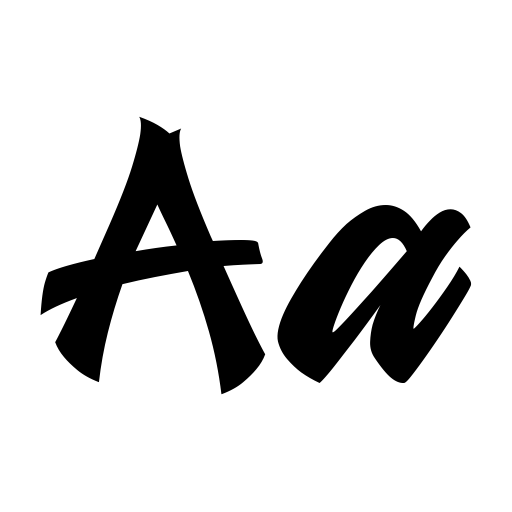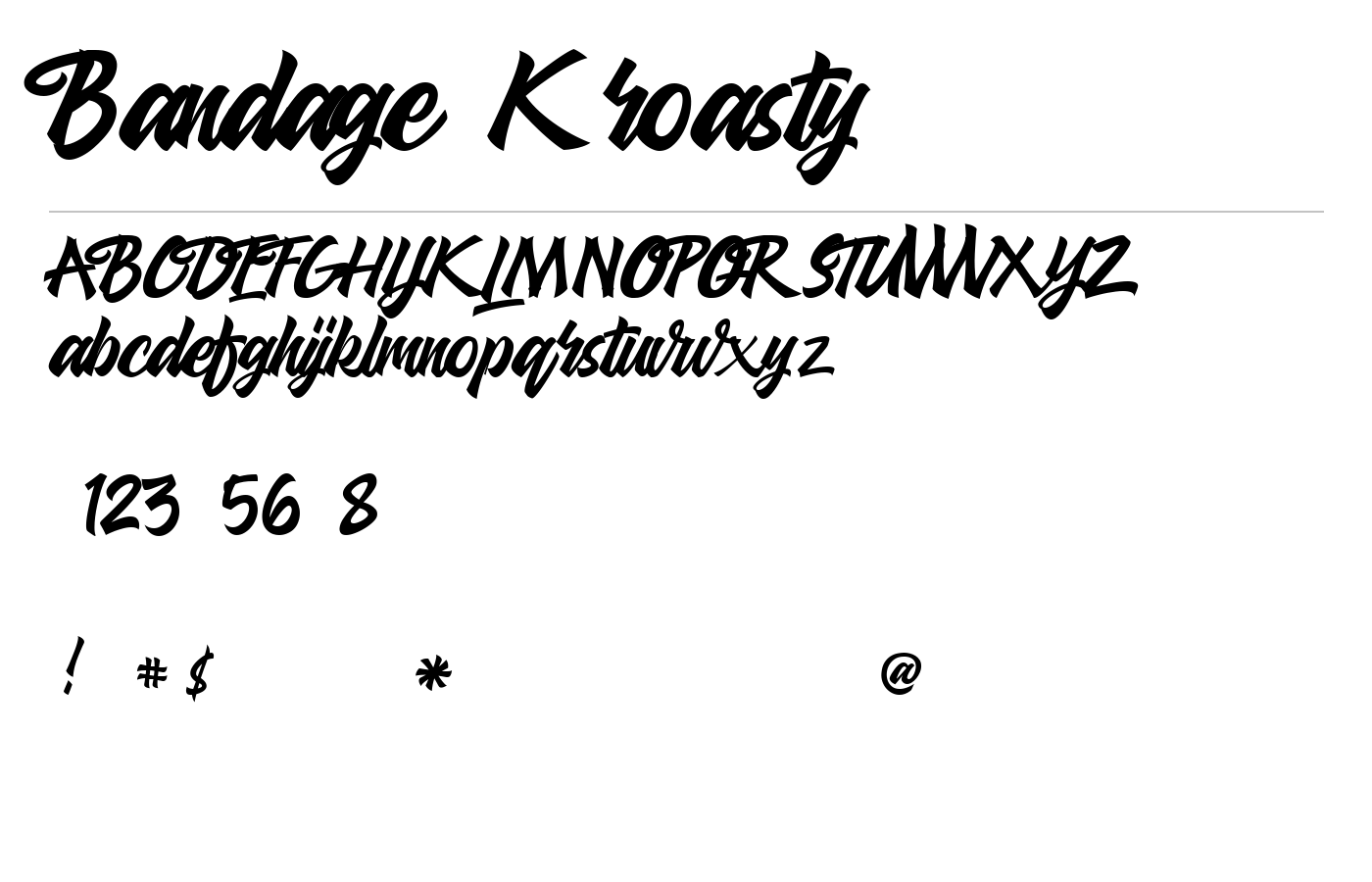
Bandage Kroasty is a bold and energetic script font that features a dynamic hand-brushed style with strong, fluid strokes and lively letterforms. Its casual yet distinctive character makes it perfect for creative branding, posters, and headlines where a modern, edgy, and artistic vibe is desired. This font adds personality and impact to designs, making it ideal for fashion, streetwear, or expressive editorial projects.
Bandage Kroasty Font
About Bandage Kroasty Font
| Font family | Bandage Kroasty Font |